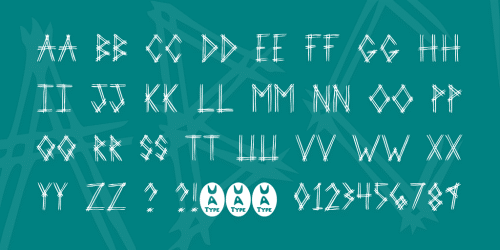
2 Prong Tree Font includes only capital letters, and some commonly used punctuation. plus the new UA Type dingbat (just to amuse myself).
When I was sitting in Huddle House one night, drinking coffee, I was showing my girlfriend the fonts I was working on. I drew out 3-Prong Tree, and she said that she didn’t like it. She told me to do it with just 2 lines on every letter. So I tried that with this one.
She realized after the finished product of 3-Prong Tree that it was good, but I went on and did 2-Prong Tree just to see the difference. 3-Prong looks better at smaller point sizes (because it’s fatter), but 2-Prong Tree looks better at larger point sizes (because the letters are cleaner).